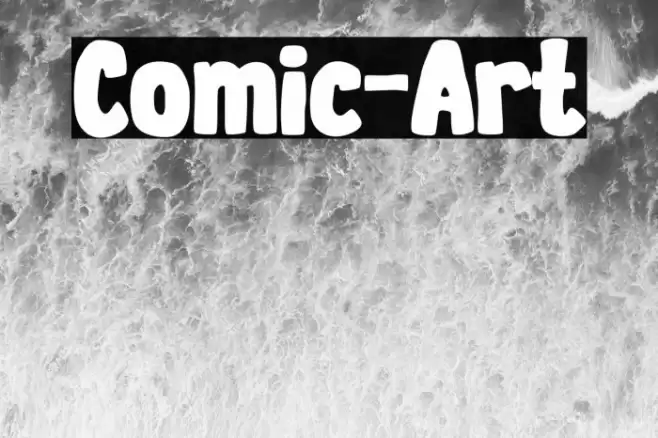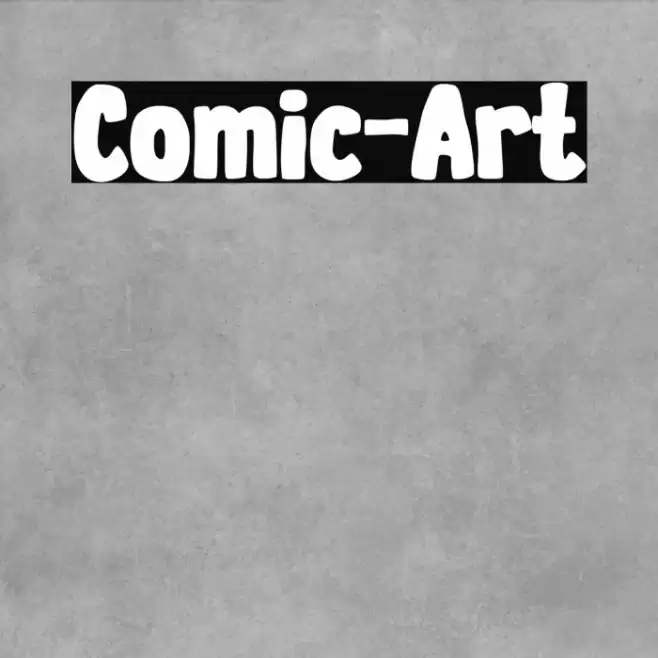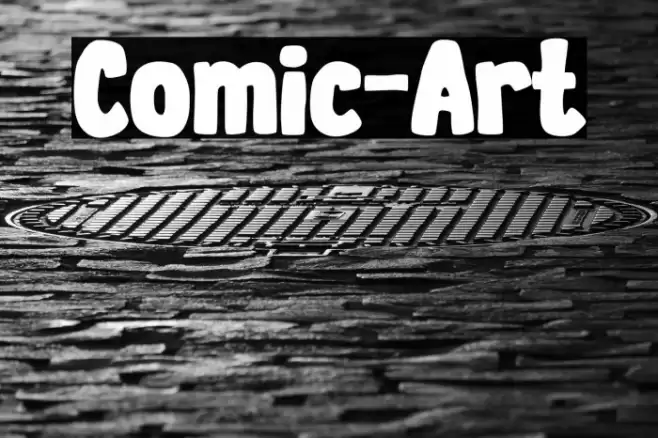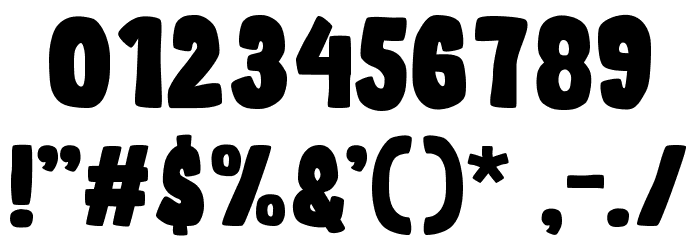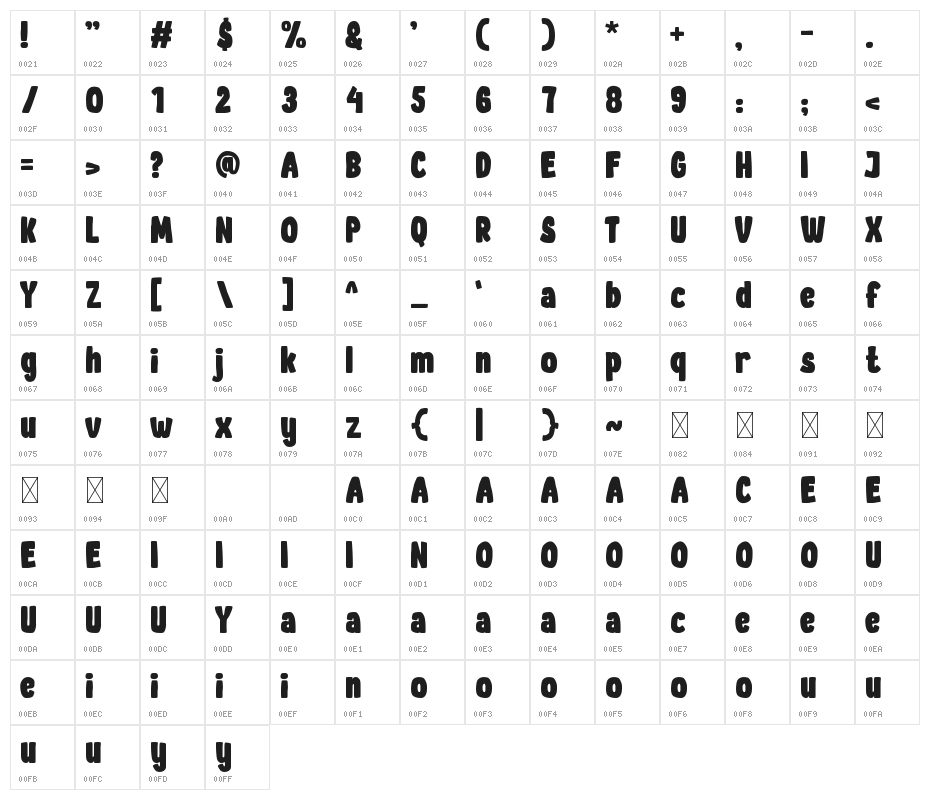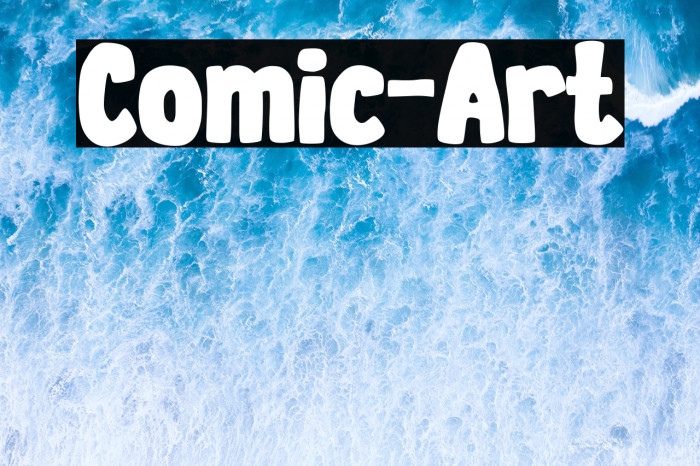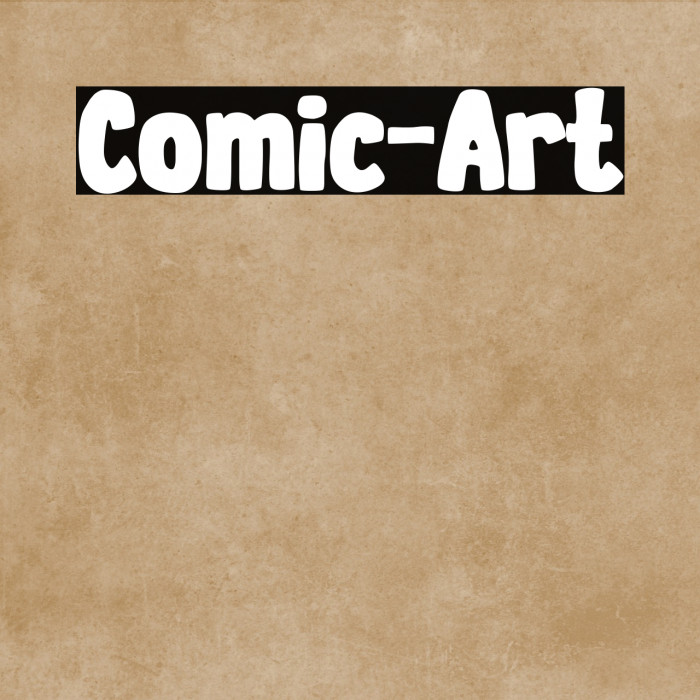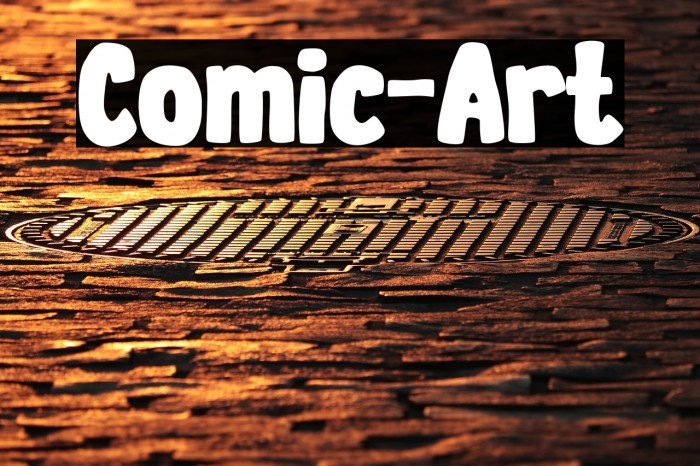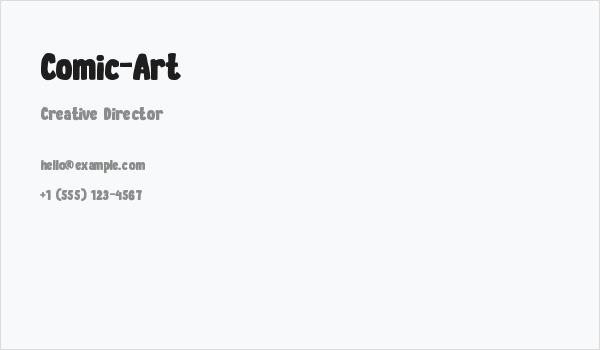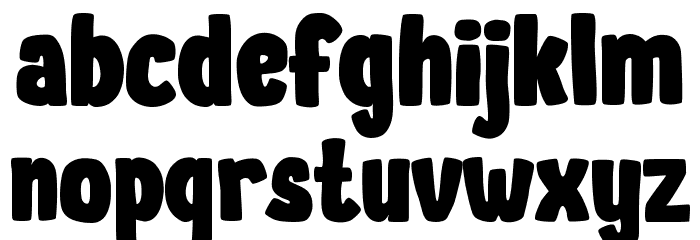
Comic-Art Font
Comic-Art Description
This playful and bold typeface exudes a lively and cartoonish vibe, perfect for capturing attention. The letters are rounded and thick, with a slightly uneven baseline that adds to its whimsical charm. The uppercase and lowercase characters maintain a consistent style, while the numbers and special characters are equally bold and expressive. This font is ideal for projects that require a fun and informal touch, such as comic books, children's materials, or playful branding. Its distinctive appearance ensures that it stands out, making it a great choice for headlines or any design that needs a burst of personality.
A bold, playful typeface with a cartoonish and lively style from Uncategorized fonts.
- Proposed Projects: Comic books, children's materials, playful branding, headlines.
- Overall Style: Playful, Cartoonish, Fun
- Use Case: Headlines, Logos, Comic books